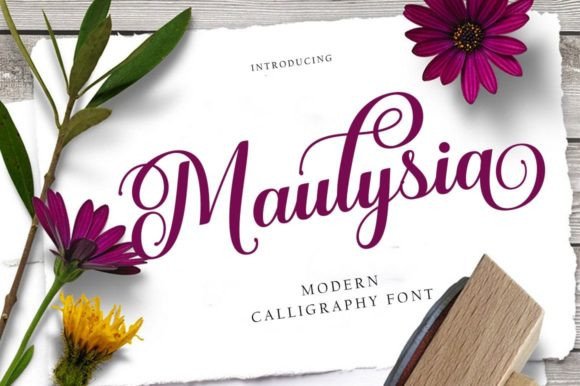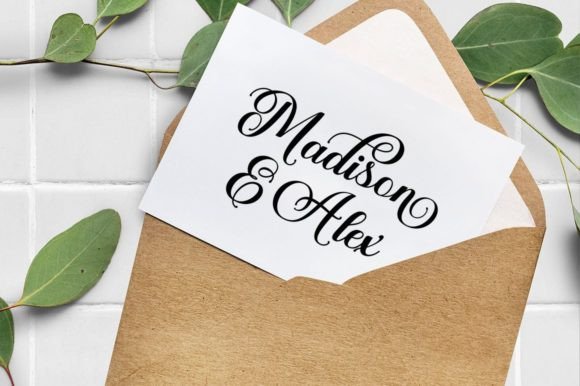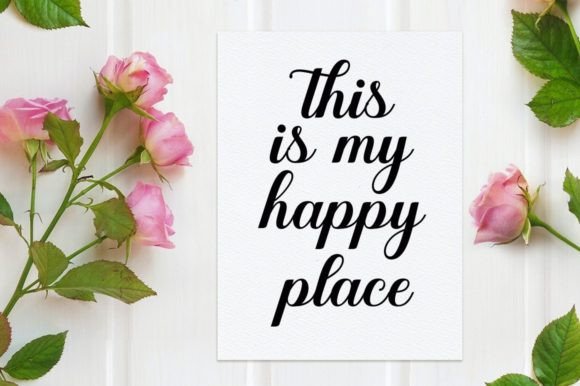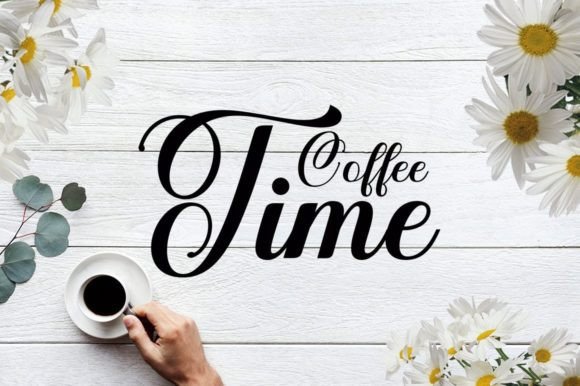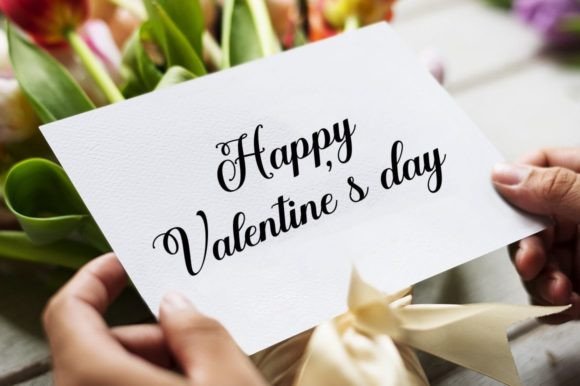
Maulysia Font
About Maulysia Font
Maulysia is a modern Signature font meticulously crafted in an elegant and professional style, featuring alternate characters for added versatility. This font is particularly well-suited for creating signature logos and watermarks, making it an ideal choice for photography studios or personal photography logos. Additionally, it excels in crafting initial logos or brand signatures.
The font’s signature style imparts a sense of sophistication and uniqueness, making it a perfect fit for creating a distinctive visual identity. Maulysia boasts a full set of beautiful handwritten characters, with special attention given to the lowercase letters that include starting and ending strokes, providing an authentic and realistic handwriting style.
Maulysia’s PUA encoding enhances its functionality, granting easy access to a variety of glyphs and swashes. This feature ensures a seamless and hassle-free design process, allowing you to incorporate unique characters and decorative elements effortlessly.
In summary, Maulysia is not just a font but a versatile tool tailored for elegant and professional signature designs. Its modern aesthetic, alternate characters, and PUA encoding make it an excellent choice for those looking to create visually striking logos, watermarks, and brand signatures that exude sophistication and style.